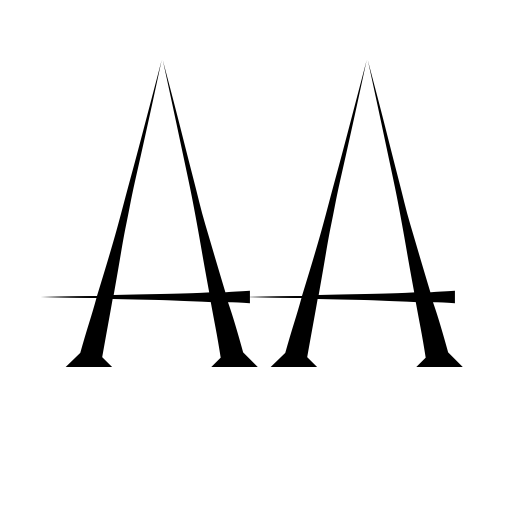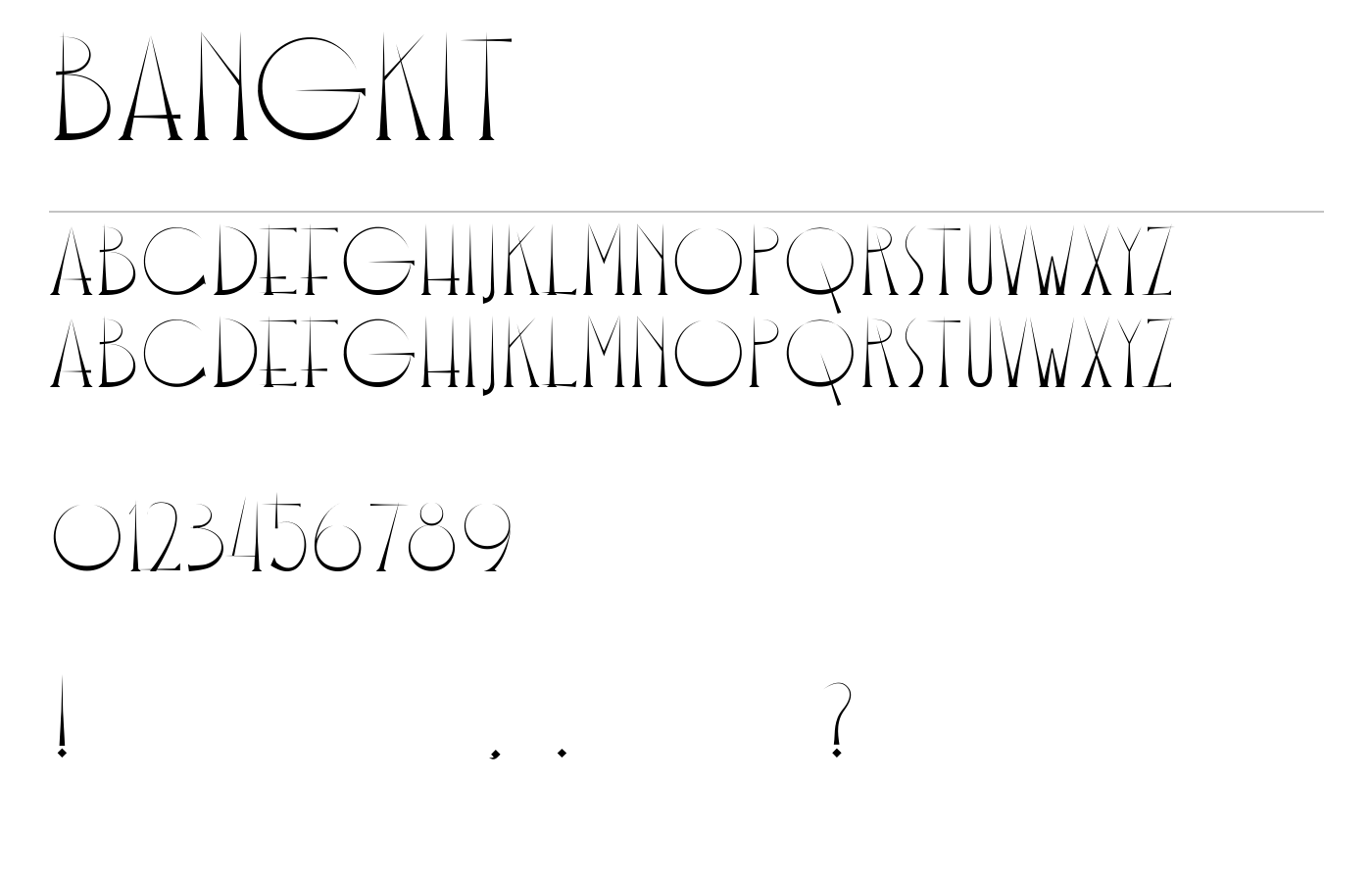
Bangkit is a delicate and elegant serif font characterized by its tall, narrow letters with high contrast between thin and thick strokes, giving it a refined and artistic feel. Its sharp, slender serifs and unique letterforms create a sophisticated, vintage-inspired look perfect for fashion branding, luxury packaging, and stylish editorial headlines where a distinctive and graceful presence is desired.
Bangkit Font
About Bangkit Font